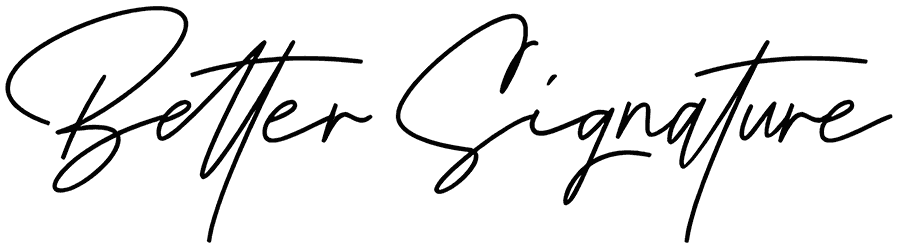
Better Signature Font
How can you leave a lasting impression on your clients better than using stylish and stunning lettering? The present signature font, with almost perfect support of characters, would be an admirable selection to do it. Better Signature has a fashionable and pretty face that will be interesting for varied projects such as branding, business cards, and fashion flyers.